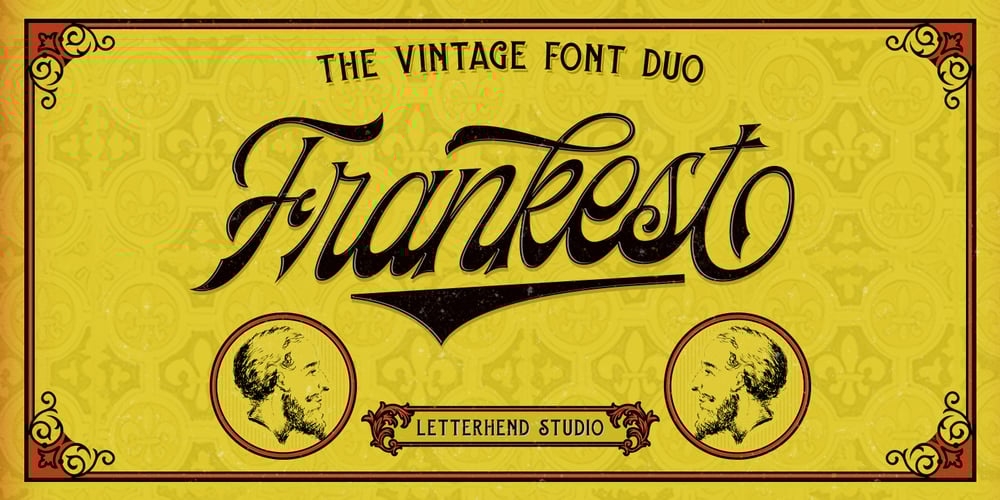
Frankest Font Family was designed by Hendry Juanda and published by Letterhend. Frankest contains 2 styles and family package options. Frankest is a vintage styled font duo. It’s perfect for logotype, headlines, apparel, and poster with a vintage feel. Features: Uppercase Lowercase Numerals & Punctuations Ligatures, stylistic alternate, etc Multilingual We hope you enjoy the font, please feel free to comment if you have any thoughts or feedback. Or simply send me a PM or email me at letterhend@gmail.com. Thanks for purchasing and have fun!